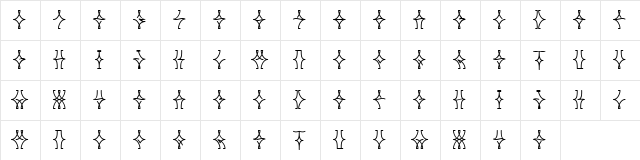
NELLY FRD Normal
| Designer | JAYE W73/FRD |
Design Context for NELLY FRD Typeface
NELLY FRD is a composed and adaptable typeface that performs quietly and consistently across a wide range of design contexts.